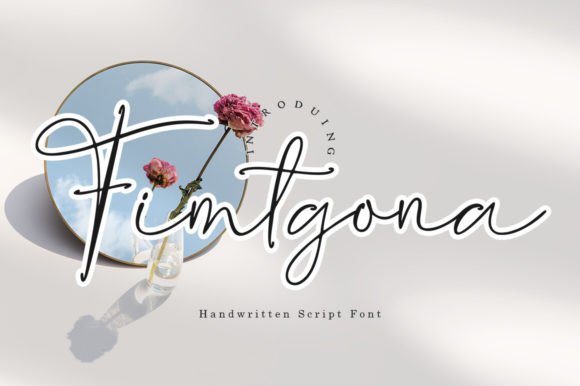
Unleash the Elegance and Authenticity of Fimtgona: A Script Font for Timeless Designs
Immerse yourself in the allure of Fimtgona, a captivating script font that exudes timeless elegance. Inspired by the carefree spirit of the 1980s, this font effortlessly adds a touch of authenticity and sophistication to your creative projects.
With its meticulously crafted ligatures and PUA encoding, Fimtgona grants you effortless access to a world of artistic possibilities. Embark on a creative journey and explore the boundless potential of this versatile font, suitable for a myriad of applications.
Picture the allure of your wedding invitations, adorned with Fimtgona's graceful strokes. Witness the transformation of your red wine labels, vodka labels, and packaging designs as they radiate an aura of luxury and distinction.
Elevate your stationery, invitations, and business cards with Fimtgona's timeless charm. Its captivating presence will leave a lasting impression, ensuring your designs stand out from the ordinary.
Transport yourself to the world of cinema and envision movie covers that captivate audiences with Fimtgona's cinematic flair. Unleash your creativity in advertising campaigns, where Fimtgona's versatility shines, captivating attention and leaving a lasting impact.
Embrace Fimtgona, the font that seamlessly blends nostalgia and modernity. Its timeless essence will elevate your designs to new heights, leaving an enduring legacy of creativity and elegance.